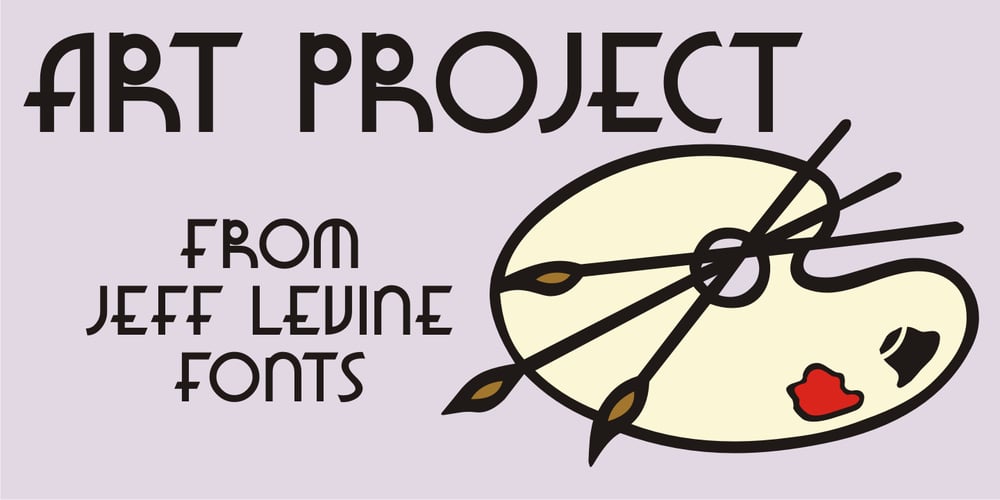
Art Project JNL Font Family was designed by published by Jeff Levine. Art Project JNL contains 1 styles and family package options. A 1930s WPA (Works Projects Administration) poster advertising a play entitled “Abraham Lincoln, The Great Commoner” had the play’s name done in a hand-lettered Art Deco sans. This is the basis for Art Project JNL. According to Wikipedia, “the Works Progress Administration (renamed in 1939 as the Work Projects Administration; WPA) was the largest and most ambitious American New Deal agency, employing millions of unemployed people (mostly unskilled men) to carry out public works projects, including the construction of public buildings and roads. In a much smaller but more famous project, Federal Project Number One, the WPA employed musicians, artists, writers, actors and directors in large arts, drama, media, and literacy projects.”